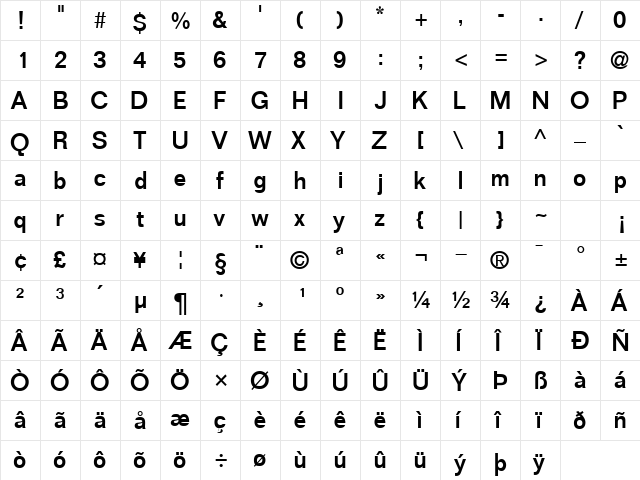
LayoutSSK Regular
Design Context for LayoutSSK Typeface
LayoutSSK takes a measured approach to typography — its balanced proportions and neutral character make it a reliable workhorse for both digital and print work.